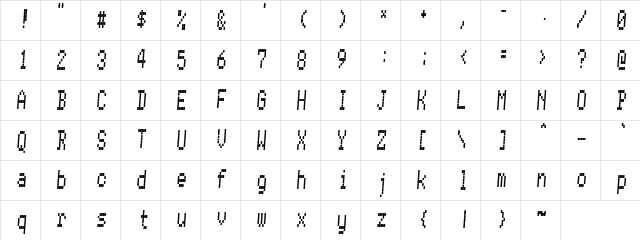
Gopicoo Regular Regular
Design Context for Gopicoo Regular Typeface
Gopicoo Regular offers clean, dependable letterforms without strong stylistic allegiance, making it a practical choice for designers who need flexibility.